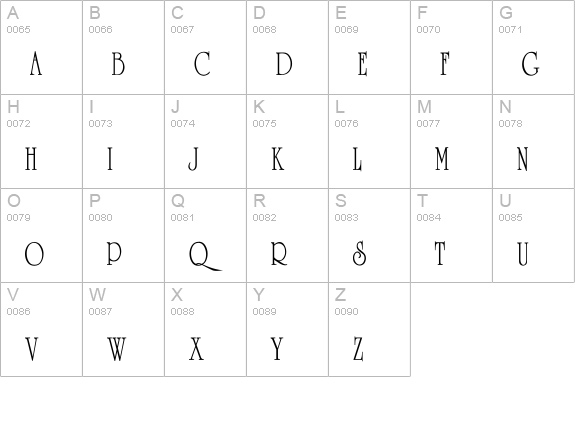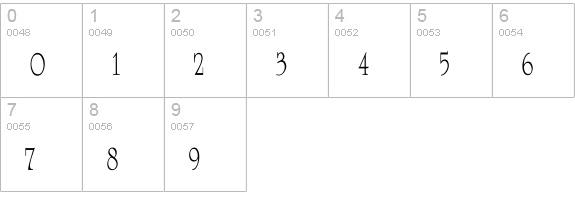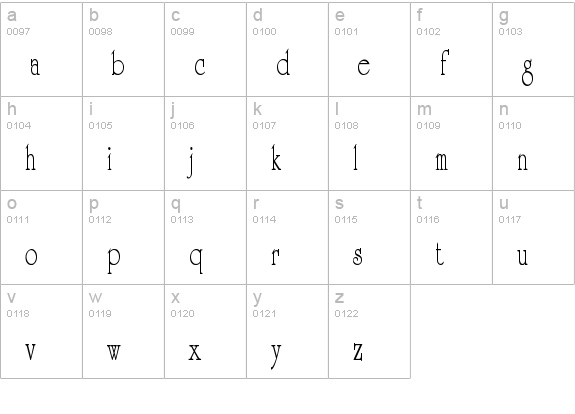
University-Thin Cn is a delicate, low-contrast variant in the University typeface family \xE2\x80\x94 well suited to fashion editorial, minimal branding, and high-contrast display.
University-Thin Cn is a stunning font that exudes elegance and sophistication. With its sleek and slender letterforms, this typeface is perfect for adding a touch of refinement to any design project. The thin strokes and clean lines of University-Thin Cn create a sense of modernity and professionalism, making it an ideal choice for logos, headlines, and body text. The beauty of University-Thin Cn lies not only in its aesthetic appeal, but also in its versatility. This font can effortlessly adapt to various design styles, whether it be for a corporate website, a fashion magazine, or a wedding invitation. Its timeless and minimalist design ensures that it will remain relevant and visually appealing for years to come. One of the best features of University-Thin Cn is that it is freely available to download at FontsMarket.com. This means that you can easily access this font and use it in your personal and commercial projects without any restrictions. Whether you are a graphic designer, a web developer, or an aspiring artist, having access to high-quality and free fonts like University-Thin Cn can greatly enhance your creative endeavors. So why wait? Download University-Thin Cn today and unleash your creativity. With its sophisticated design and free availability, this font is sure to elevate your designs and make a lasting impression.